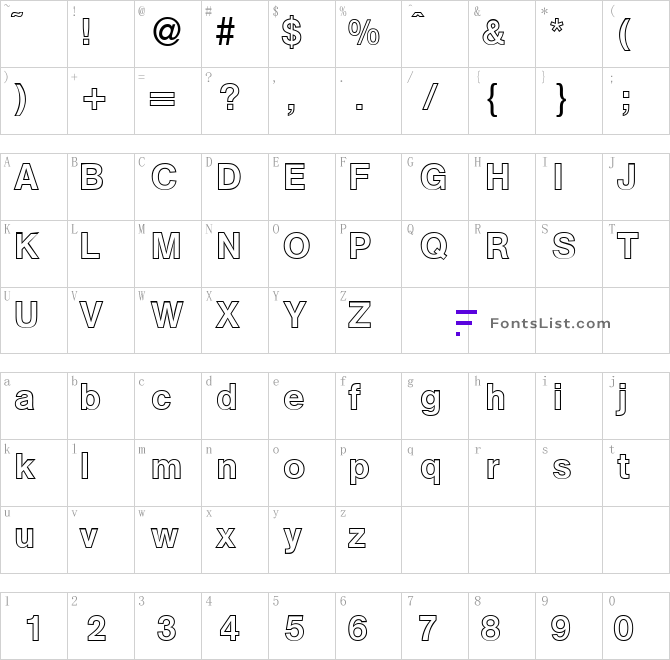
- Font Name:AgentOutlineDB
AgentOutlineDB-Normal.ttf is a very beautiful artistic font, AgentOutlineDB-Normal.ttf is widely used in the design and printing of various books and pictures,AgentOutlineDB-Normal.ttf has a strong visual impact,AgentOutlineDB-Normal.ttf is a commonly used font in newspapers, magazines and books, and is used in posters, e-commerce Poster design, store design, logo design, font design and other fields.AgentOutlineDB-Normal.